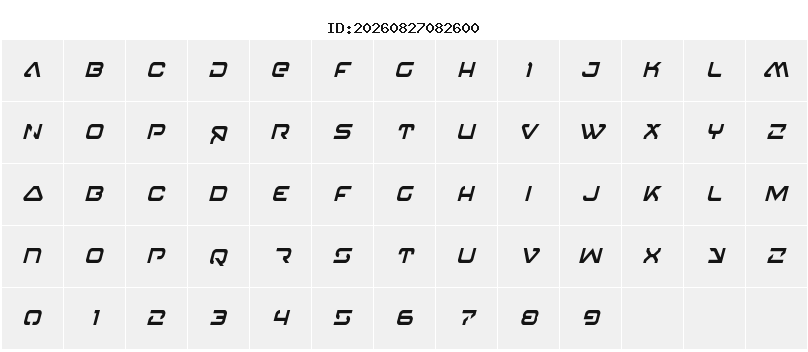
4114 Blaster Condensed Italic Preview
• Font Name: 4114 Blaster Condensed Italic
• Font Style: Condensed Italic
• Full Font Name: 4114 Blaster Condensed Italic
About 4114 Blaster Condensed Italic.ttf
4114 Blaster Condensed Italic.ttf is a modern, elegant sans-serif font designed for ultimate readability and visual harmony. Perfect for branding, headlines, web design, and print materials.